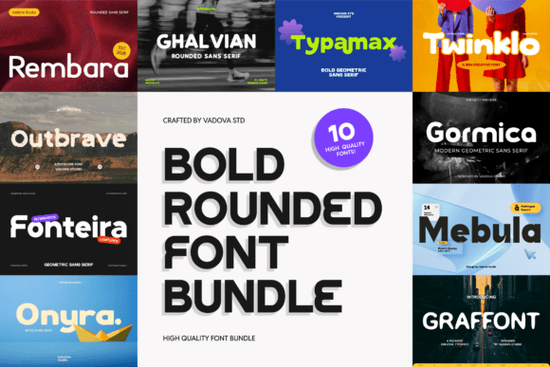
When you need a typeface that grabs attention without feeling aggressive, the Bold Rounded Font bundle offers a perfect middle ground. It combines heavy, confident strokes with soft, curved edges to create a look that is both modern and welcoming. This collection is built for designers, crafters, and small business owners who want their text to stand out while remaining highly readable on any medium.
Why choose rounded edges for bold typography?
Heavy typefaces often risk looking too harsh or corporate, which can accidentally alienate your audience. By softening the corners, this collection balances heavy weight with a friendly vibe. It gives your projects a confident presence without feeling intimidating. This makes it an excellent choice for brands that want to appear strong but still approachable, community-focused, and easy to connect with. The smooth curves naturally draw the eye and make the text feel less rigid.
Where can I use these typefaces in my projects?
Because these letters are crafted specifically for display use, they work best at larger sizes where the clean structure really shines. You can use them for a variety of creative needs:
- T-shirt and apparel graphics for print-on-demand shops looking for a modern streetwear vibe.
- Vinyl decals and stickers, where the smooth edges actually make weeding much easier for crafters since there are no sharp inner corners to tear.
- Social media banners and digital ad copy that needs to stop people from scrolling.
- Packaging design for small business products that need a premium but friendly shelf presence.
If you are pairing it with other styles, you might want to contrast it with something lighter, like a modern thin bundle, to create a nice visual hierarchy on your page or poster.
How does it compare to other display fonts?
Every font family brings a different mood to a layout. While a macaron style typeface might give you a sweet, playful feel for a bakery logo, this rounded collection offers a more structured, contemporary look. It has solid shapes that keep readability high even at a glance. If you need something a bit more casual for a party invitation, you might look at a fun event style instead. However, for everyday brand building and professional layouts, this bundle gives you reliable versatility. For a more geometric alternative, you could also explore a kagure style to see how different edge treatments change the overall mood.
How can I get the best results when typing?
To keep the text looking clean and readable, pay close attention to your letter spacing. Heavy fonts can sometimes feel cramped if the tracking is too tight, so give the letters room to breathe. Also, stick to one or two weights from the bundle to avoid cluttering your design. When building a brand identity, using a solid display font for your headers paired with a simpler secondary font for body text creates a highly professional look.
Quick checklist before your next design:
- Test the font at your actual design size to check overall readability.
- Adjust the letter spacing so the heavy strokes do not bleed together.
- Pair it with a simpler, lighter secondary font for your body paragraphs.